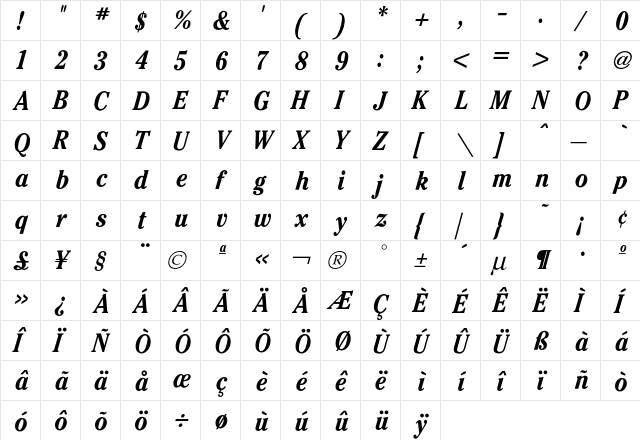
Cheltenham CondBoldItalic Font Preview
Design Context for Cheltenham Typeface
Cheltenham takes a measured approach to typography — its balanced proportions and neutral character make it a reliable workhorse for both digital and print work. Its italic angle brings a sense of urgency and motion to the letterforms. Its bold stroke weight gives it real presence on the page. Its narrow stance lets it pack a punch even in space-constrained designs.
Pro Tip: Use Cheltenham for emphasis, pull quotes, and subheadings where its slanted energy can add rhythm to the layout.